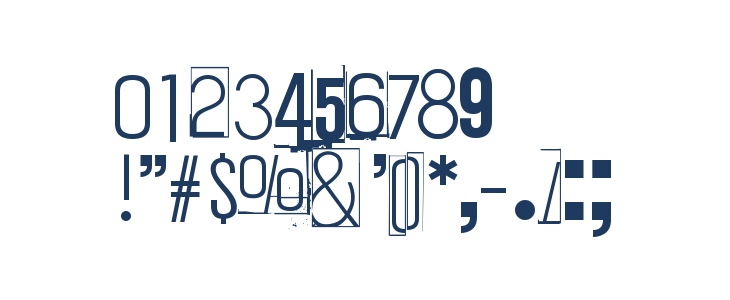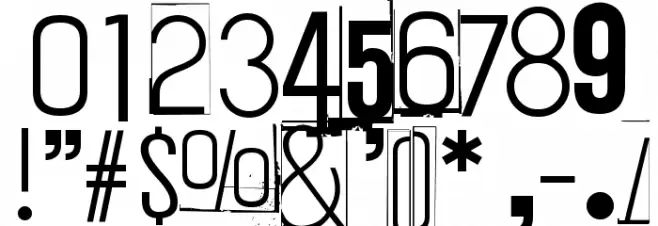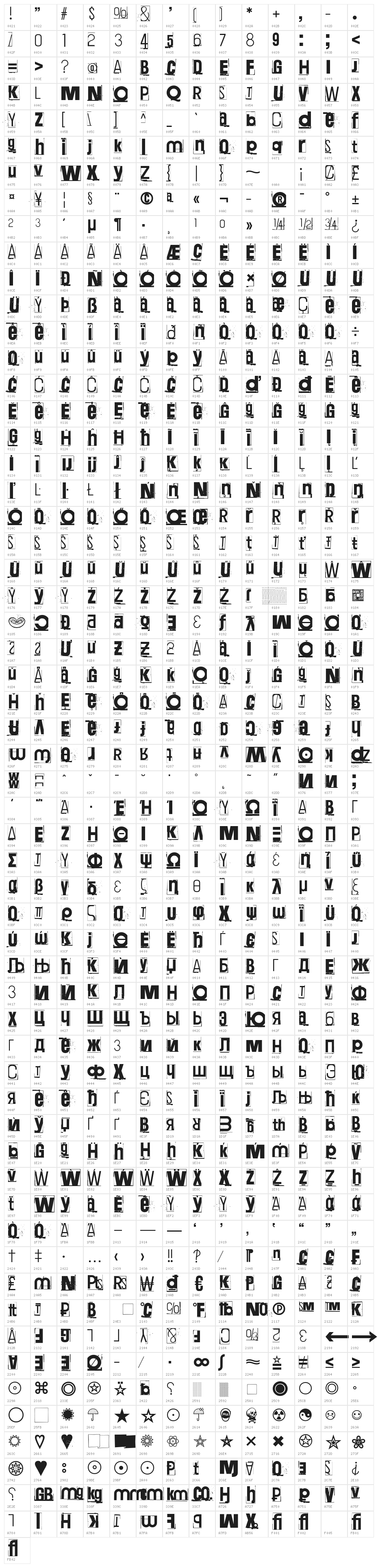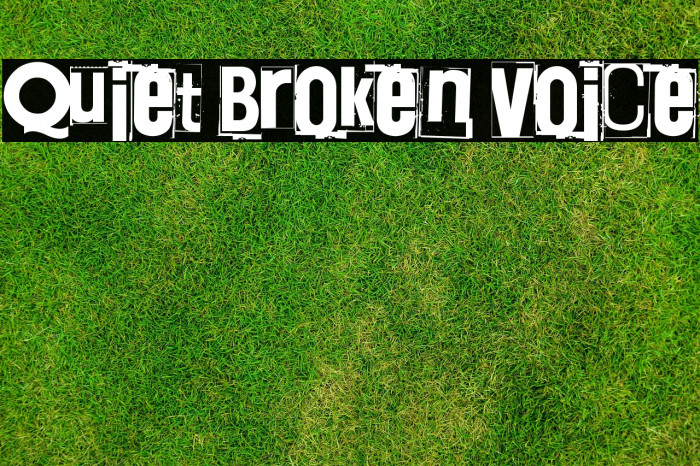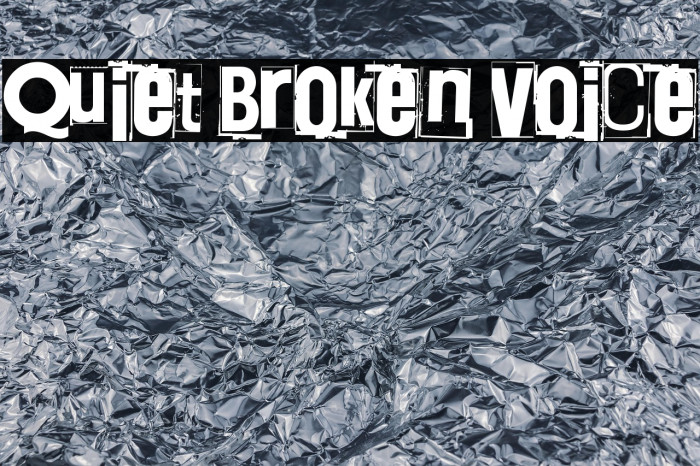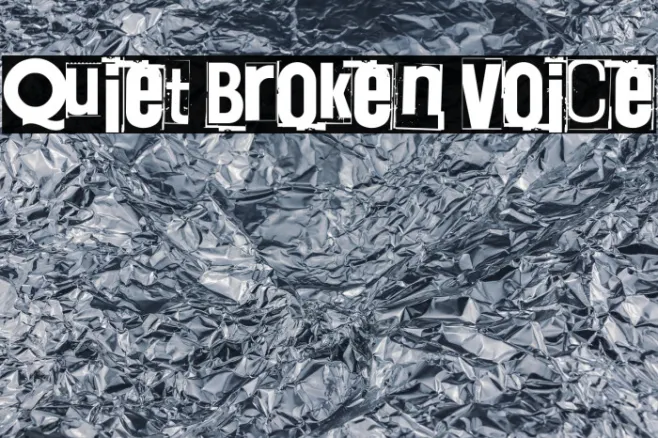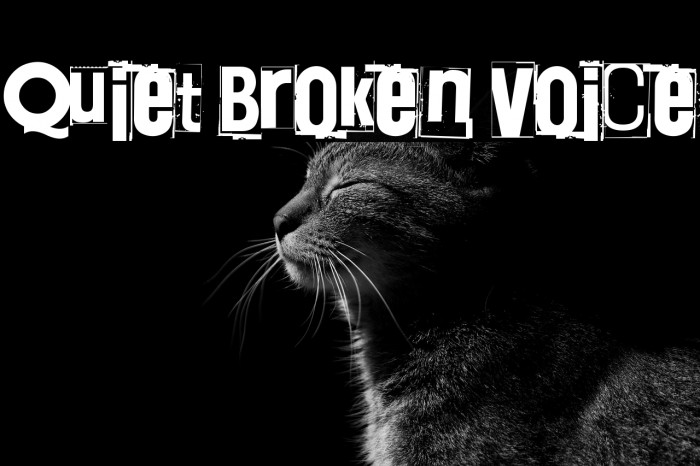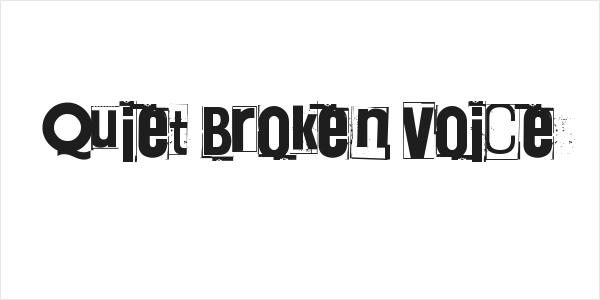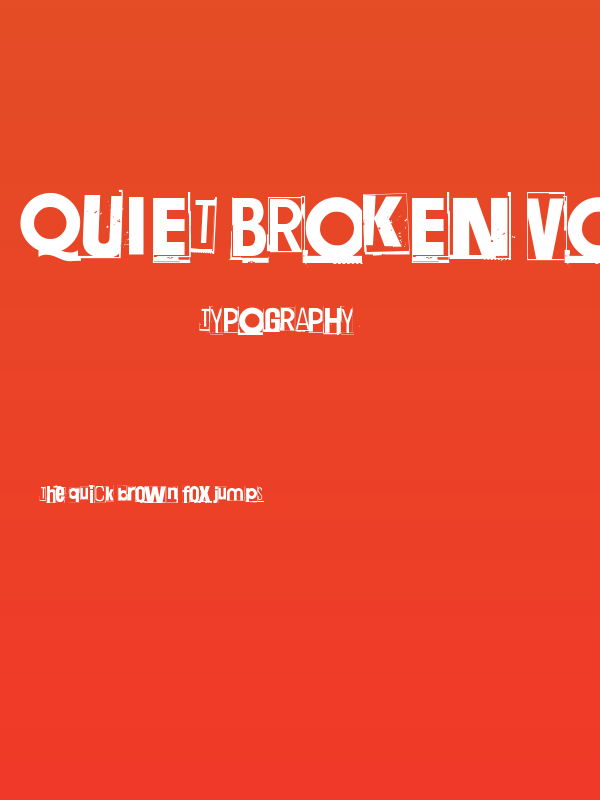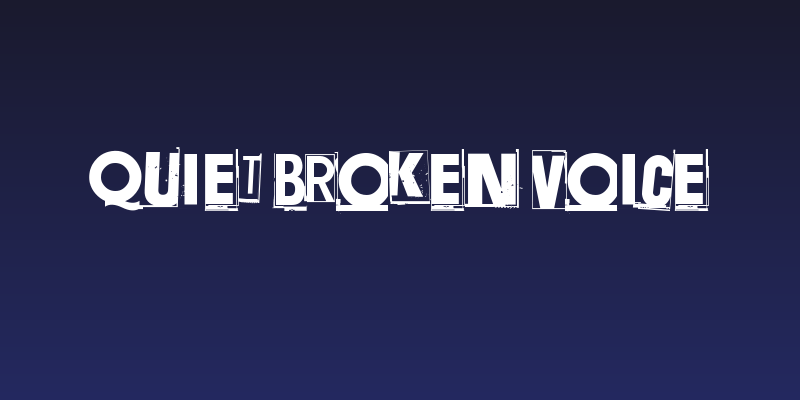
Quiet Broken Voice Font
Quiet Broken Voice Description
This font features a unique, distressed style that resembles letters cut from magazines or newspapers, creating a collage effect. Each character appears to be slightly misaligned, with varying levels of boldness and texture, giving it a chaotic yet artistic appearance. The uppercase and lowercase letters, along with numbers and special characters, maintain this eclectic and fragmented look, making it ideal for projects that require a grunge or punk aesthetic. The font's irregularity and bold presence make it stand out, perfect for designs that aim to capture attention with a rebellious or unconventional vibe.
Proposed ProjectsIdeal for album covers, posters, zines, or any project needing a grunge or punk aesthetic.